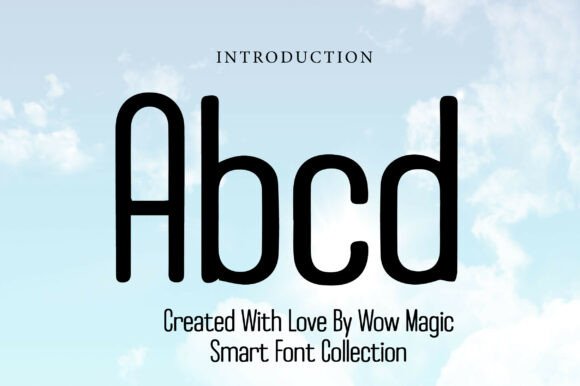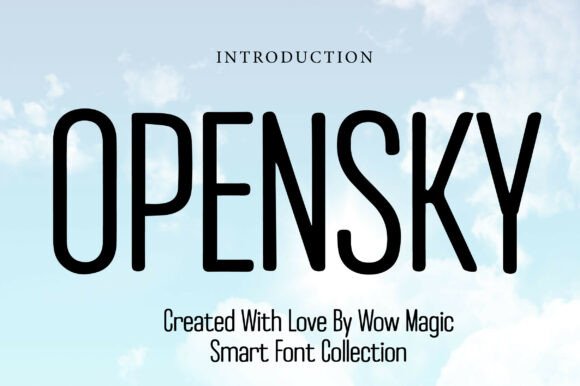
Introduction to Opensky Font
Opensky is a clean and modern display font with a sleek, minimalist, and contemporary personality.
Its tall letterforms and smooth structure create a stylish visual look that feels fresh, bold, and highly professional Designed with simplicity and clarity in mind, Openskys is perfect for branding, logos, posters, headlines, packaging, editorial layouts, social media graphics, and modern marketing materials.
Key Features of Opensky Font
Why Choose Opensky Font?
Opensky Font offers exceptional quality and versatility, making it a valuable addition to your design toolkit. Whether you’re creating for personal projects or commercial use, Opensky Font delivers professional results.